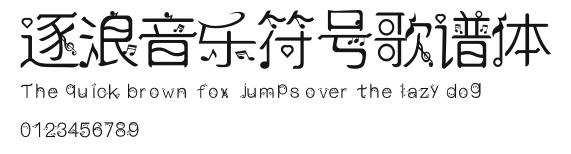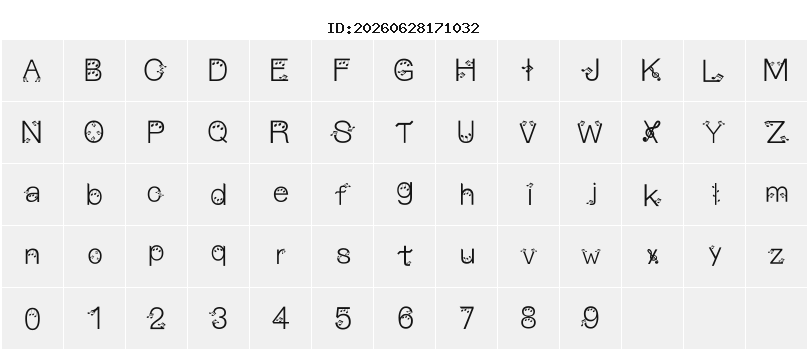
• Font Name: 逐浪音乐符号歌谱体
• Font Style: 常规
• Full Font Name: 逐浪音乐符号歌谱体
• Designer: hx008Com
• Manufacturer: Shanghai ZoomlaCMS co.,LTD
About 逐浪音乐符号歌谱体.otf
逐浪音乐符号歌谱体.otf is a modern, elegant sans-serif font designed for ultimate readability and visual harmony. Perfect for branding, headlines, web design, and print materials.